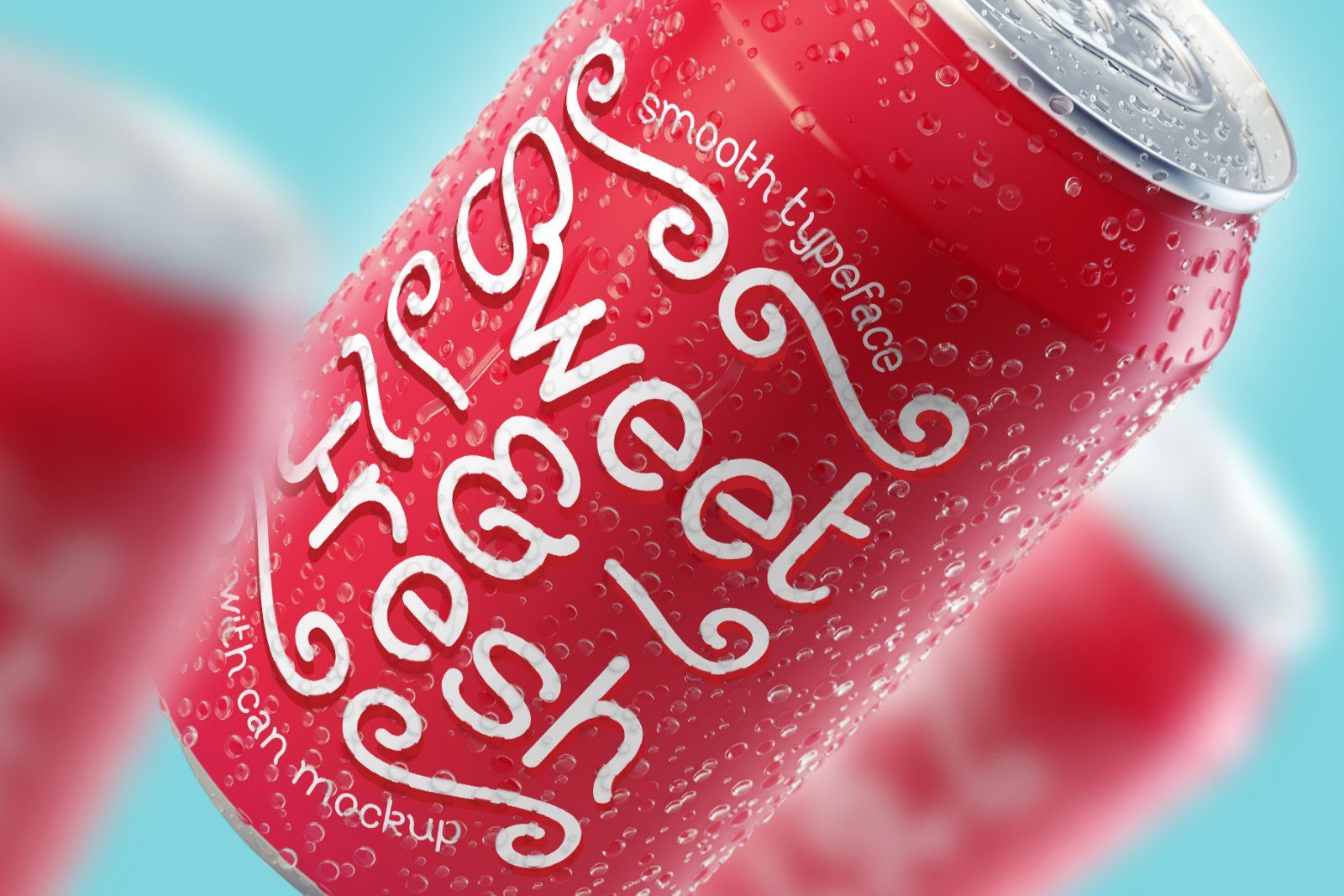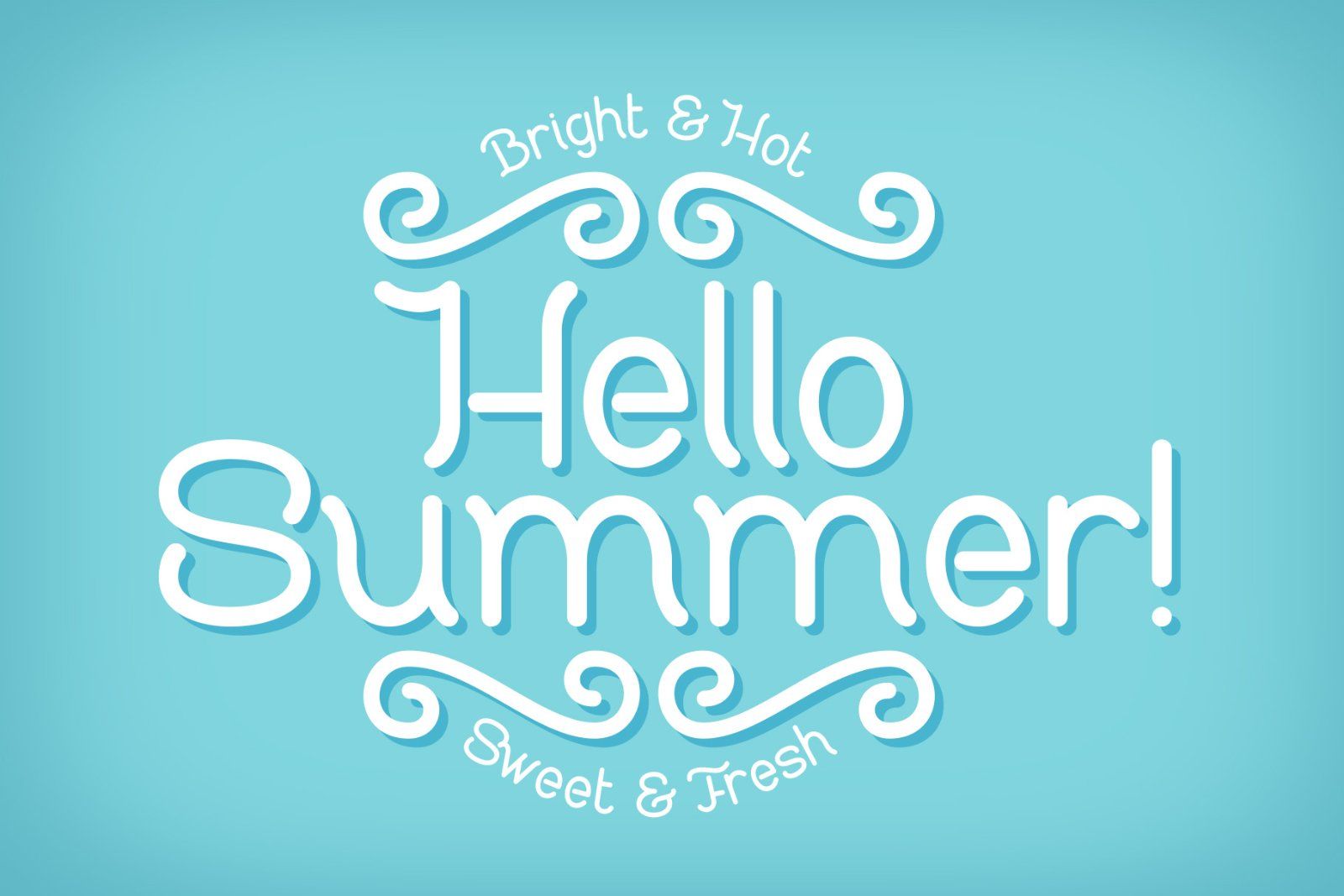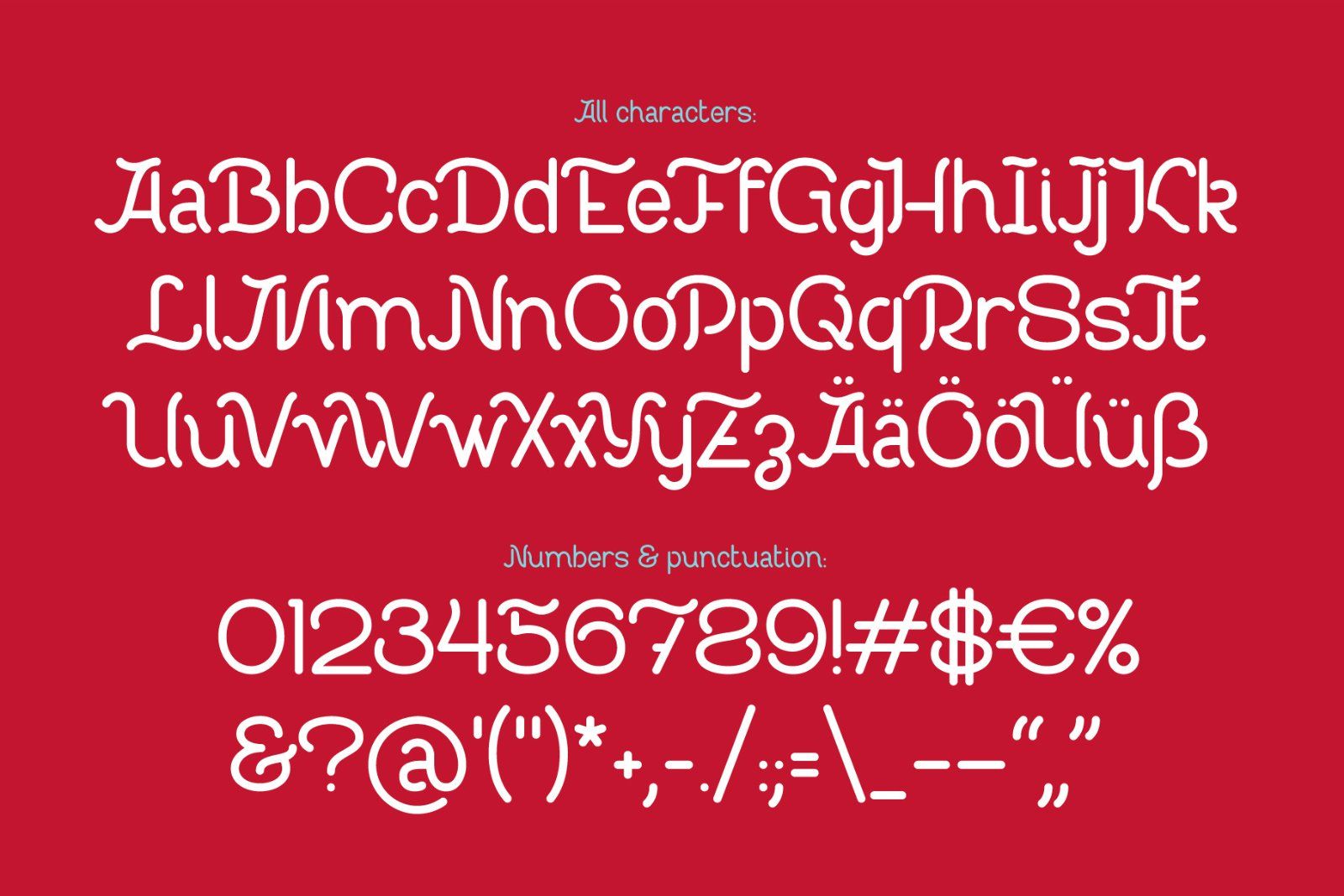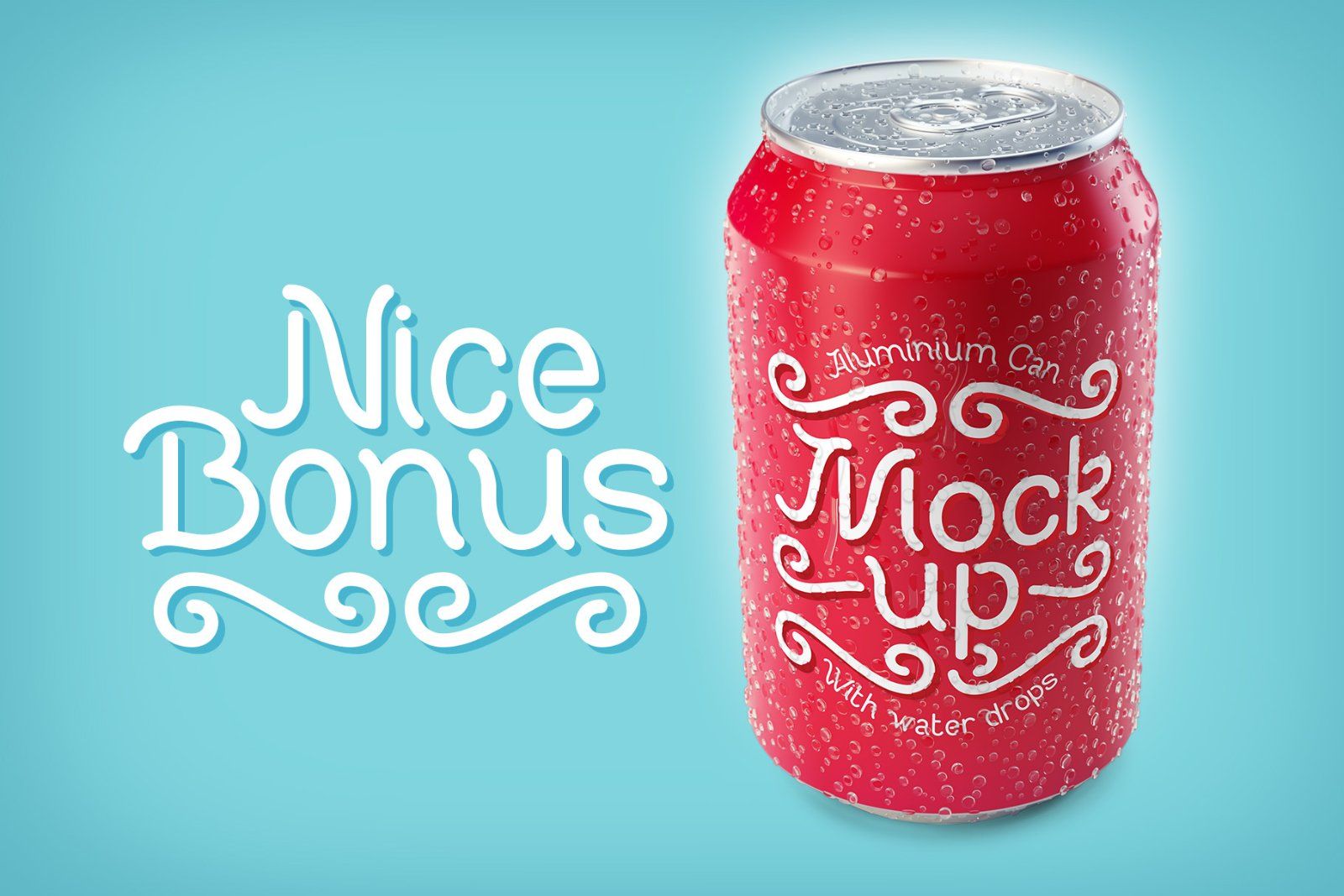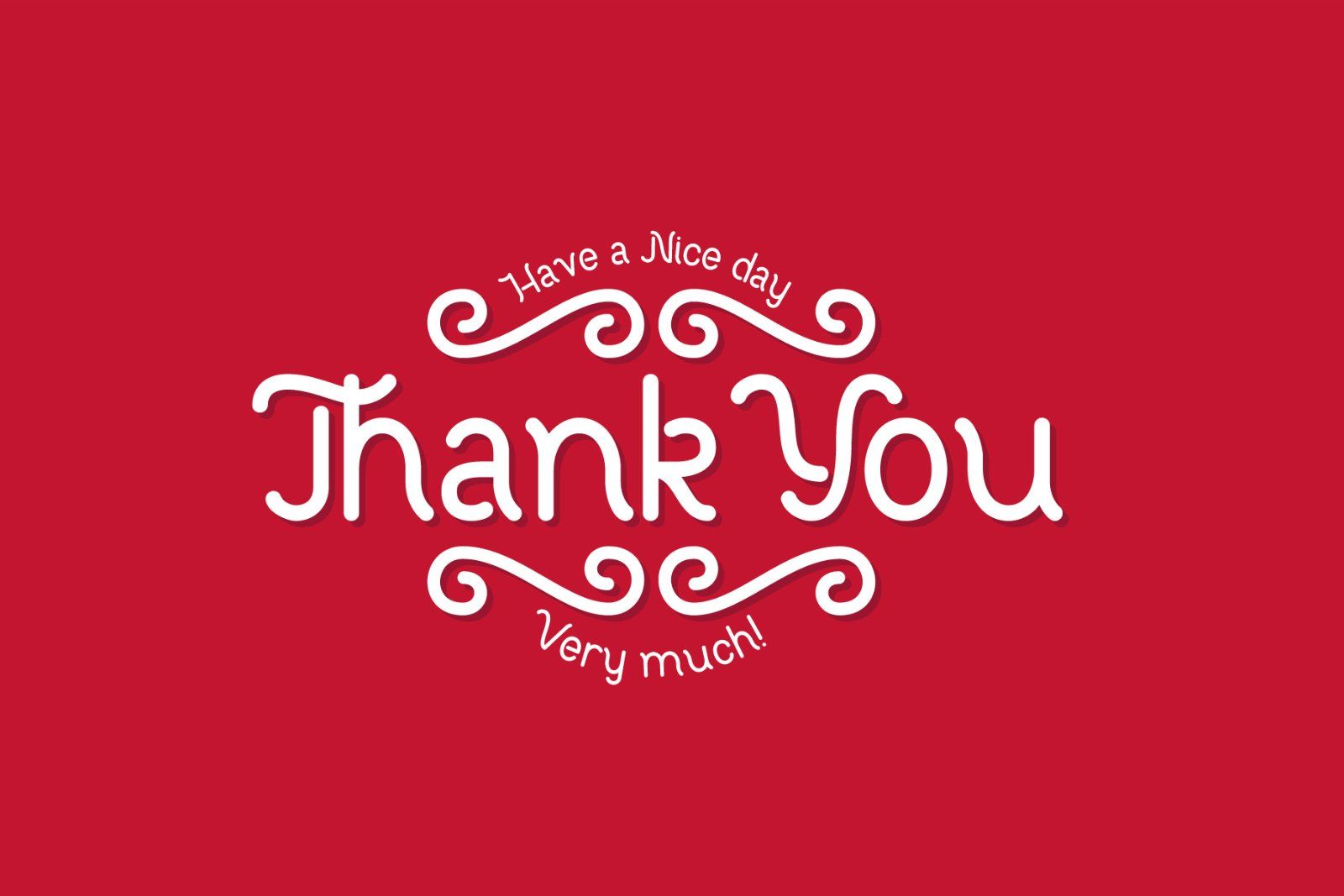
Hi, introducing a smooth modern typeface named "Sweet & Fresh". It has a trendy look and nice rounded shape. As a bonus it includes 3d rendered alluminium can mockup covered with fresh water drops. Also vector template with label design from the cover is available.
P.S. All available characters you can see on the 3rd screenshot.